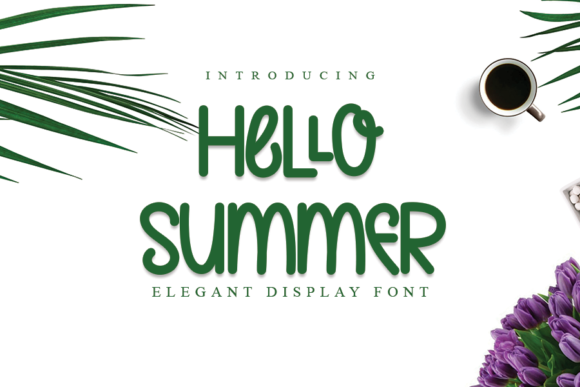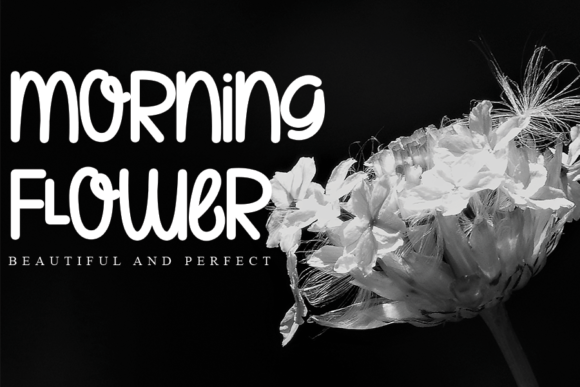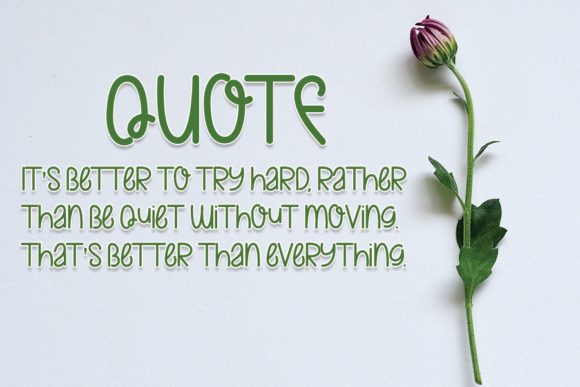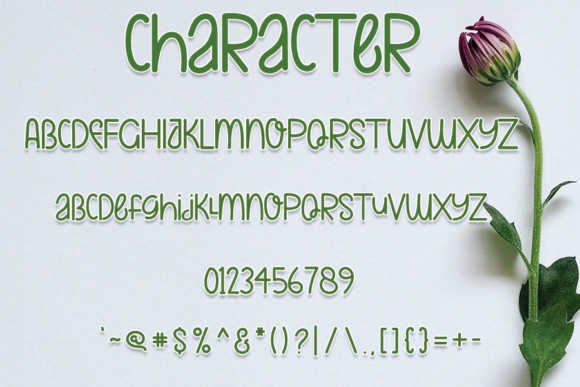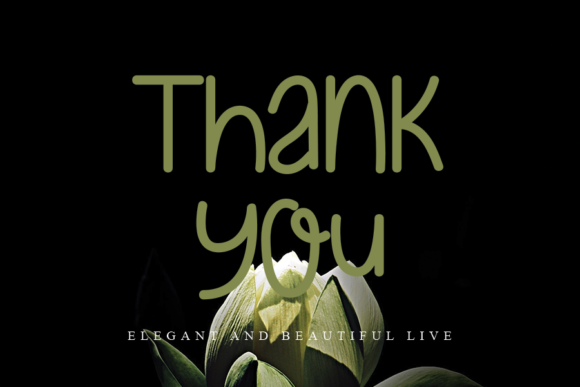
Welcome to the Warmth of Summer
As the sun shines bright and the days get longer, there’s no better time to bring a touch of whimsy to your designs. We’ve all been there – sitting in front of our computers, staring at a blank screen, waiting for that elusive spark of inspiration to strike. And then, it happens. A burst of creativity, a dash of fun, and suddenly you’re envisioning a project that’s full of life and energy.
That’s exactly what the Hello Summer Font is all about – capturing the essence of carefree summer days and infusing them into your designs. This charming display font is the perfect addition to any project, from greeting cards and social media posts to branding and advertising campaigns. Its natural and unique style makes it incredibly versatile, and the only limit is your imagination!
Hello Summer Font Key Features
- Unique Characteristics: The font features a unique blend of modern and playful elements, with a relaxed, summer-inspired feel that is perfect for branding and design projects.
Hello Summer Font Review
As a designer, I was excited to dive into the Hello Summer Font and see what it had to offer. Here’s my honest take.
- The playful and carefree vibe of the font is perfect for summer-themed designs or projects that need a light and airy feel.
- The font is highly legible, making it a great choice for body text or headlines in a variety of contexts.
- The font’s rounded edges and soft lines create a friendly and approachable atmosphere.
- The font may not be the best choice for formal or professional designs, as its playful nature may come across as too casual.
- The font’s lack of bold weight options may limit its use in situations where a strong, attention-grabbing headline is needed.
- The font’s aesthetic may be too “summer-y” for use outside of the summer season, limiting its versatility.
The Hello Summer Font is a fun and lighthearted addition to any design project. While it may not be suitable for all types of designs, it’s a great choice for projects that need a carefree and playful vibe. With some careful consideration of its limitations, I think this font has a lot of potential for creative and effective use.
The “Hello Summer Font” is perfect for summer-themed designs, such as beach vacation invitations, summer party flyers, and outdoor event promotions.
Some additional tips for getting the most out of the “Hello Summer Font” include:
- Using it in combination with bright and pastel colors to evoke a fun and playful vibe.
- Experimenting with different font sizes and styles to create visual interest.
- Using it in conjunction with illustrations or graphics to create a cohesive design.
Alternatives to Hello Summer Font
Great Vibes Font is a beautiful, handwritten script font that is perfect for adding a touch of elegance and sophistication to your designs. It’s ideal for use in wedding invitations, greeting cards, and other creative projects where a unique, personal touch is needed. Compared to Hello Summer Font, Great Vibes Font has a more refined and polished look, making it suitable for a wider range of applications.
Alex Brush Font is a modern, elegant script font that is great for use in fashion, beauty, and lifestyle designs. Its sleek and sophisticated lines make it perfect for creating eye-catching headlines and titles. Compared to Hello Summer Font, Alex Brush Font has a more contemporary feel and is better suited for modern and trendy designs.
Carolyna Pro Font is a beautiful, elegant script font that is perfect for use in high-end fashion and luxury designs. Its refined and sophisticated lines make it ideal for creating stunning headlines and titles. Compared to Hello Summer Font, Carolyna Pro Font has a more refined and polished look, making it suitable for high-end and luxury designs.
Q: What is the recommended font size and line height for optimal readability with Hello Summer Font?
For optimal readability, we recommend using a font size between 12pt and 18pt and a line height of 1.2 to 1.5 times the font size. This will provide a clear and comfortable reading experience. You can adjust these settings based on your design requirements and the intended audience.